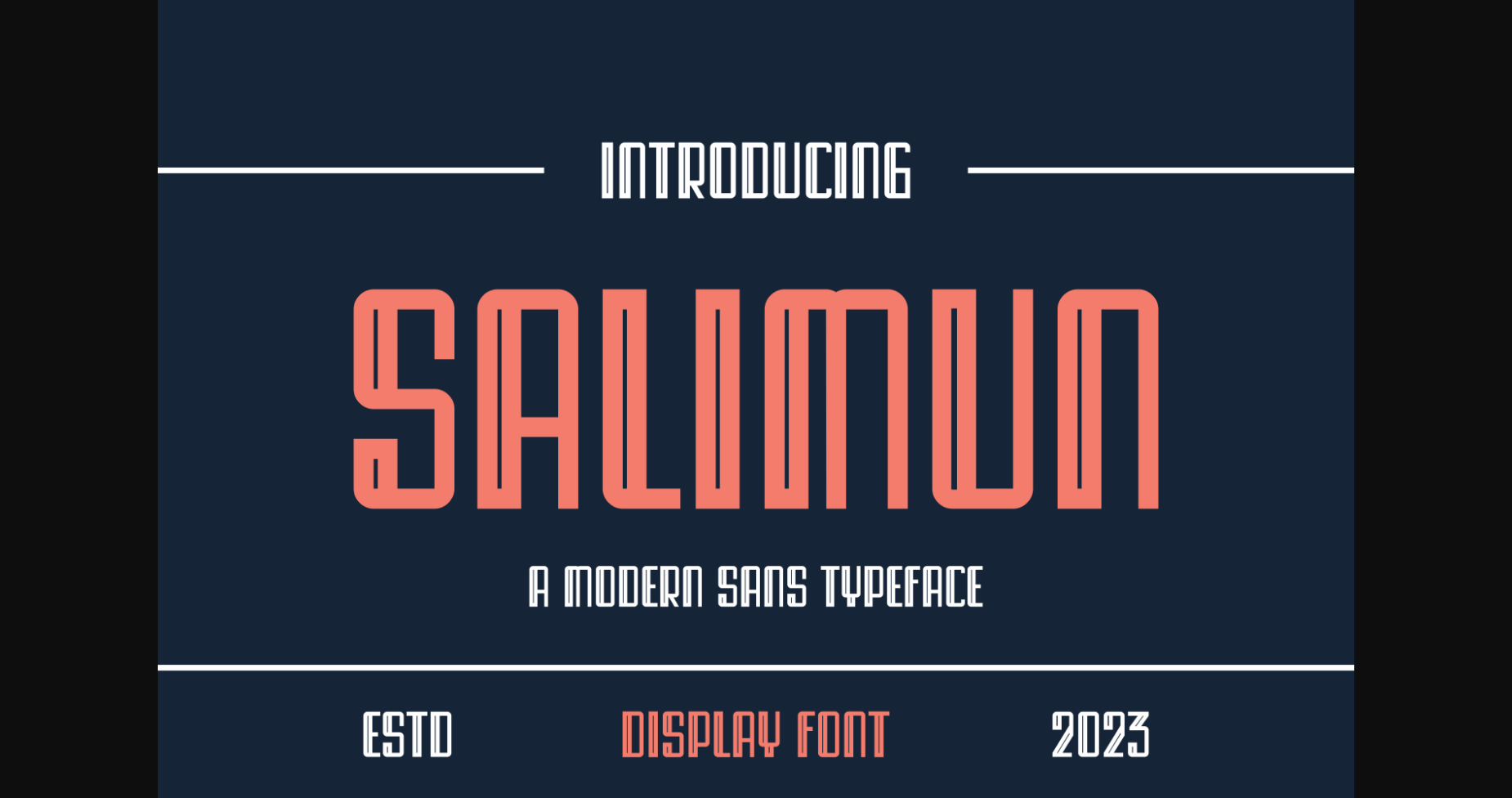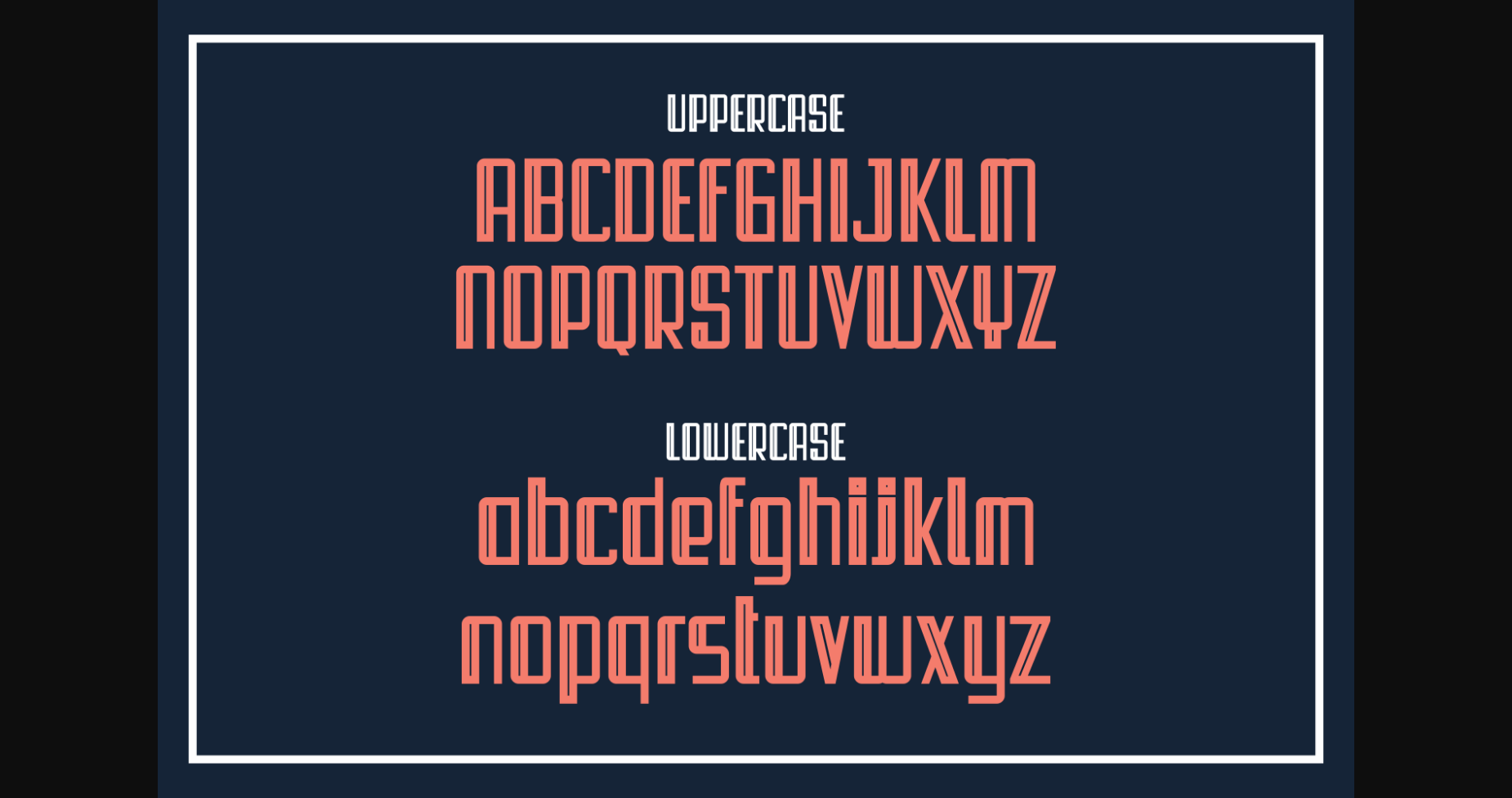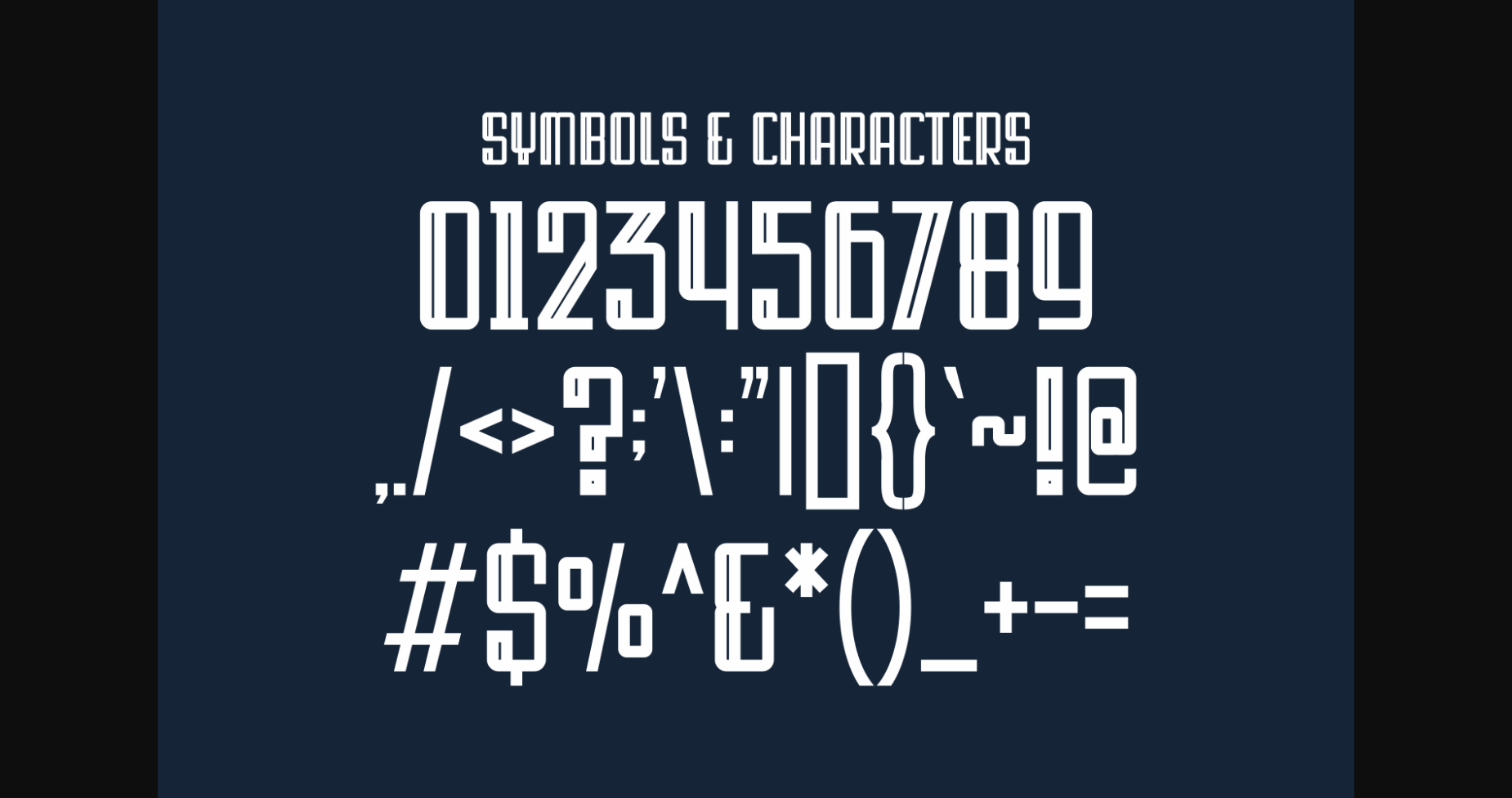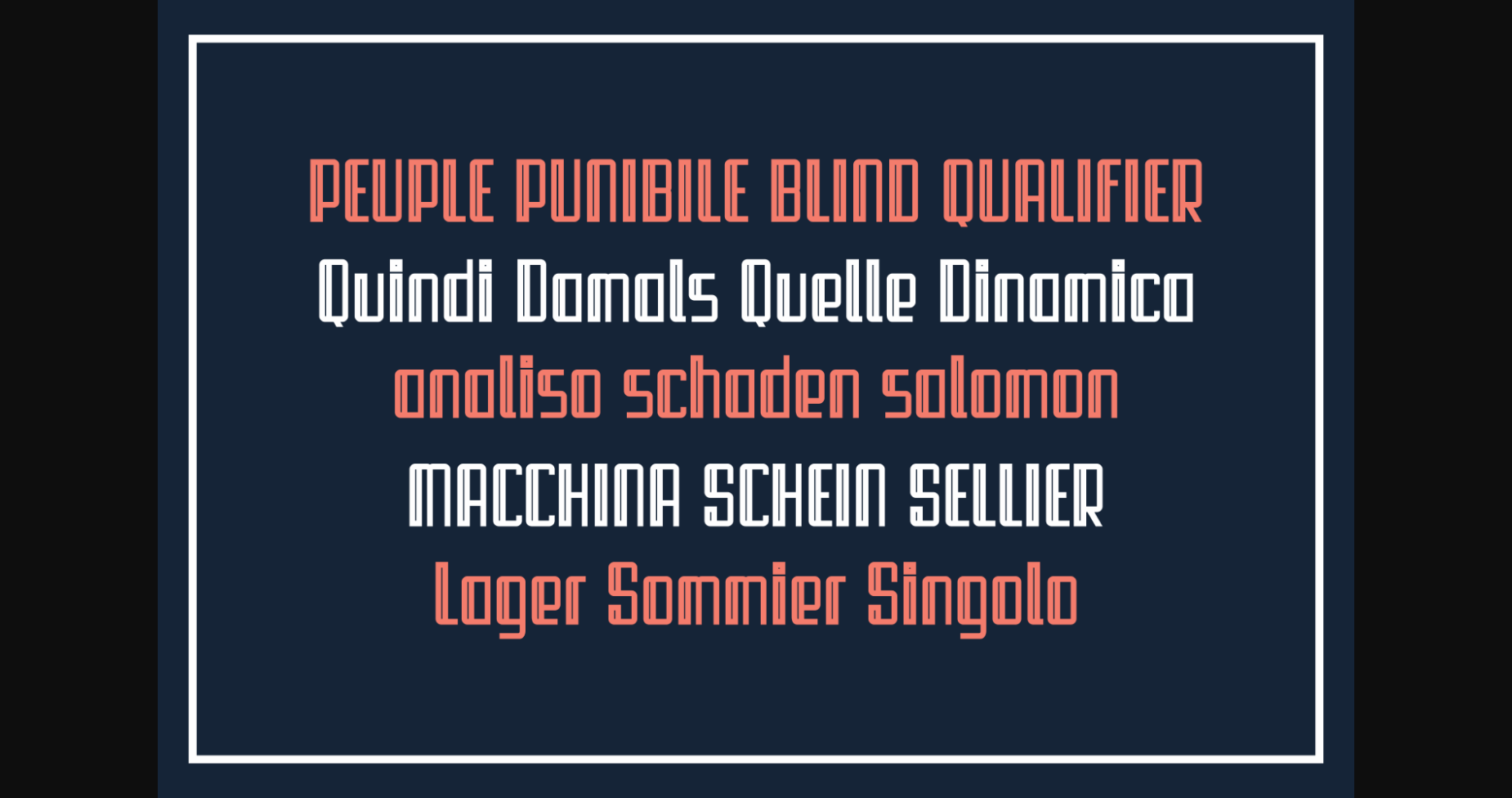
About Salimun Font
Salium is a bold serif font, perfectly suited for branding, name cards, posters, logos, magazine, covers, banners, t-shirt and headers, or even large-scale artwork and so much more!